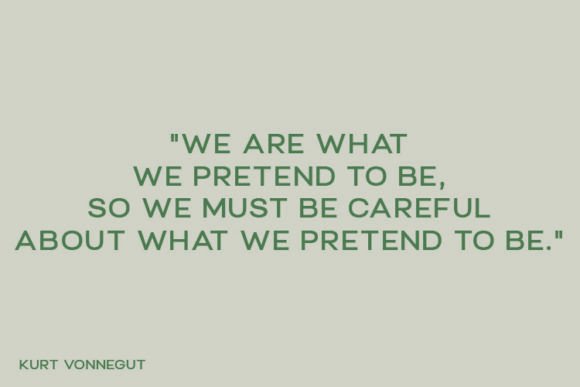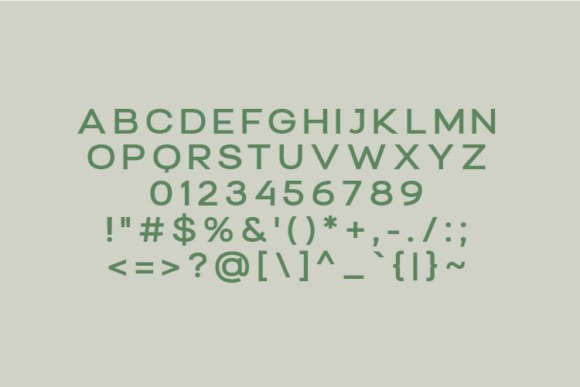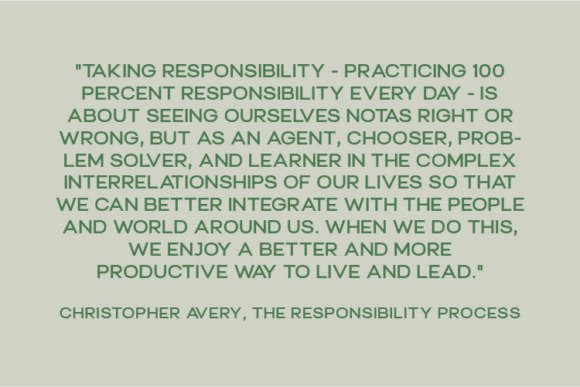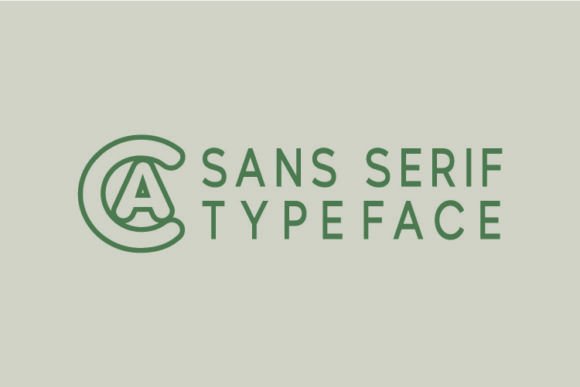
Introduction to Lionthin Font
Imagine you’re working on a creative project, pouring your heart and soul into a design that needs the perfect finishing touch. You’ve got the concept, the colors, and the layout, but something’s missing – a typeface that truly elevates your work. This is where the Lionthin Font comes in, a high-quality sans serif typeface that’s about to become your new go-to design resource.
Designed to be versatile and stylish, the Lionthin Font is perfect for a wide range of applications, from logos and advertisements to weddings and invitations. With its transparent background and free download option, you can easily integrate it into your design without any hassle. Whether you’re a seasoned designer or just starting out, the Lionthin Font is a valuable addition to your toolkit, offering endless possibilities for creative expression.
So, what sets the Lionthin Font apart from other typefaces? Its unique blend of modernity and sophistication, making it an ideal choice for any design project that requires a touch of elegance and refinement.
Key Features of Lionthin Font
- High-quality design with a unique, elegant style, perfect for creative projects and design resources.
- Transparent background, allowing for easy layering and customization in various design applications.
- Designed with attention to detail and precision, resulting in a clean and sophisticated aesthetic.
Honest Review: Lionthin Font
I recently came across the Lionthin Font, and I’m excited to share my thoughts on this high-quality design resource. The Lionthin Font is a clean and modern sans-serif font that’s perfect for a variety of creative projects, from logos to editorial designs.
One of the standout features of the Lionthin Font is its transparent background, which makes it incredibly versatile and easy to use. I’ve been experimenting with it in my designs, and I’ve been impressed with the level of detail and precision it offers.
Here are some of the things that work well with the Lionthin Font:
- High-quality design: The Lionthin Font is a well-crafted, professional-looking font that’s sure to elevate your designs.
- Easy to use: The Lionthin Font is incredibly easy to use, even for designers who are new to typography.
- Limited character set: The Lionthin Font only includes a limited character set, which may not be suitable for designers who need a wide range of characters.
- Not ideal for small text: The Lionthin Font is best used for larger text sizes, as it can become difficult to read at smaller sizes.
Overall, I’m really impressed with the Lionthin Font. It’s a fantastic resource for designers who are looking for a high-quality, easy-to-use font that’s perfect for a variety of creative projects. With its transparent background and free download, it’s a must-have for any design library.
Common Use Cases for Lionthin Font
The Lionthin Font is suitable for various creative projects, including social media graphics, posters, presentations, and reports. It’s also great for use in branding materials, such as logos or business cards. With its high-quality features and transparent background, the Lionthin Font is an excellent design resource for any creative project.